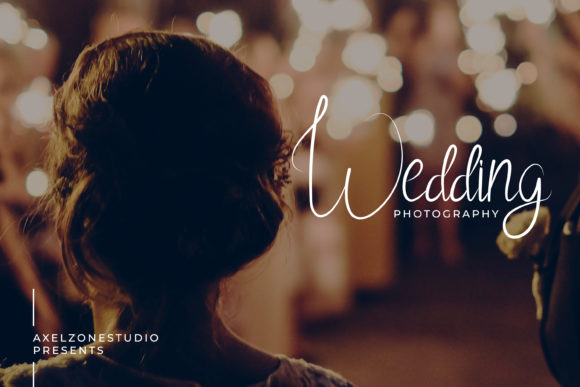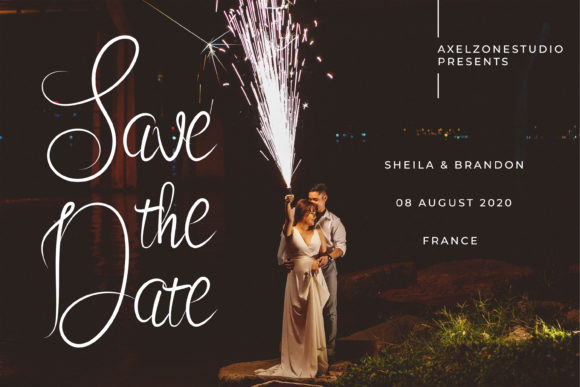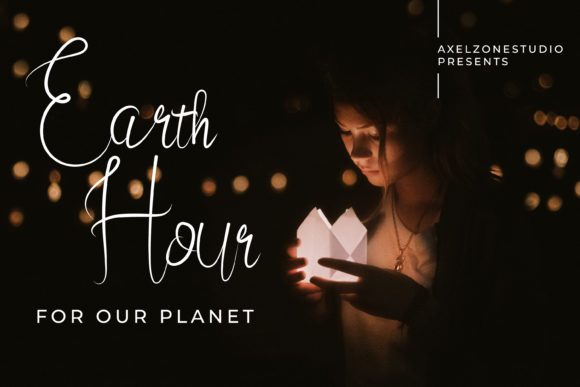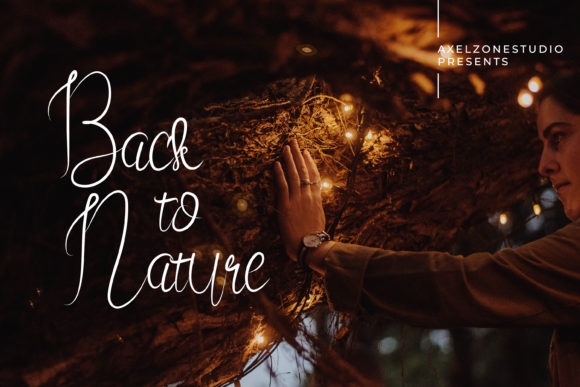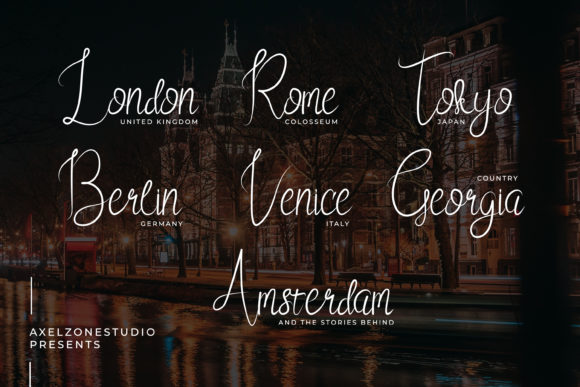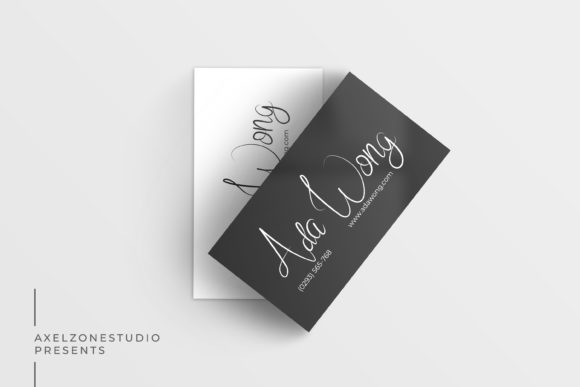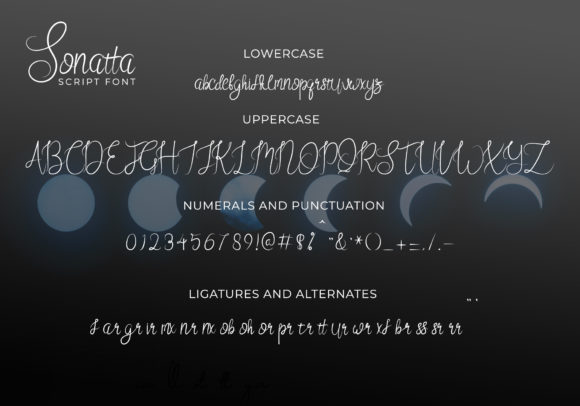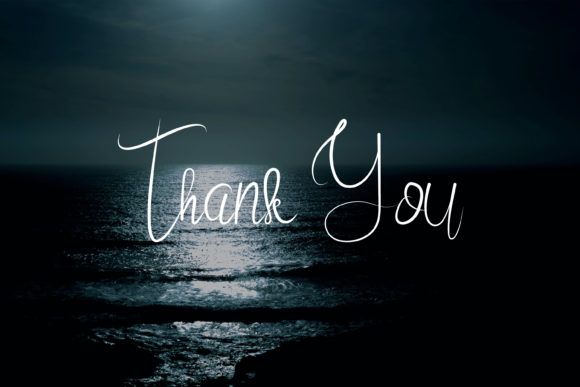
Sonatta Font
About Sonatta Font
Sonatta is a delicate, elegant and flowing handwritten font. It has beautiful and well balanced characters and as a result, it matches a wide pool of designs. Add it to your most creative ideas and notice how it makes them come alive!